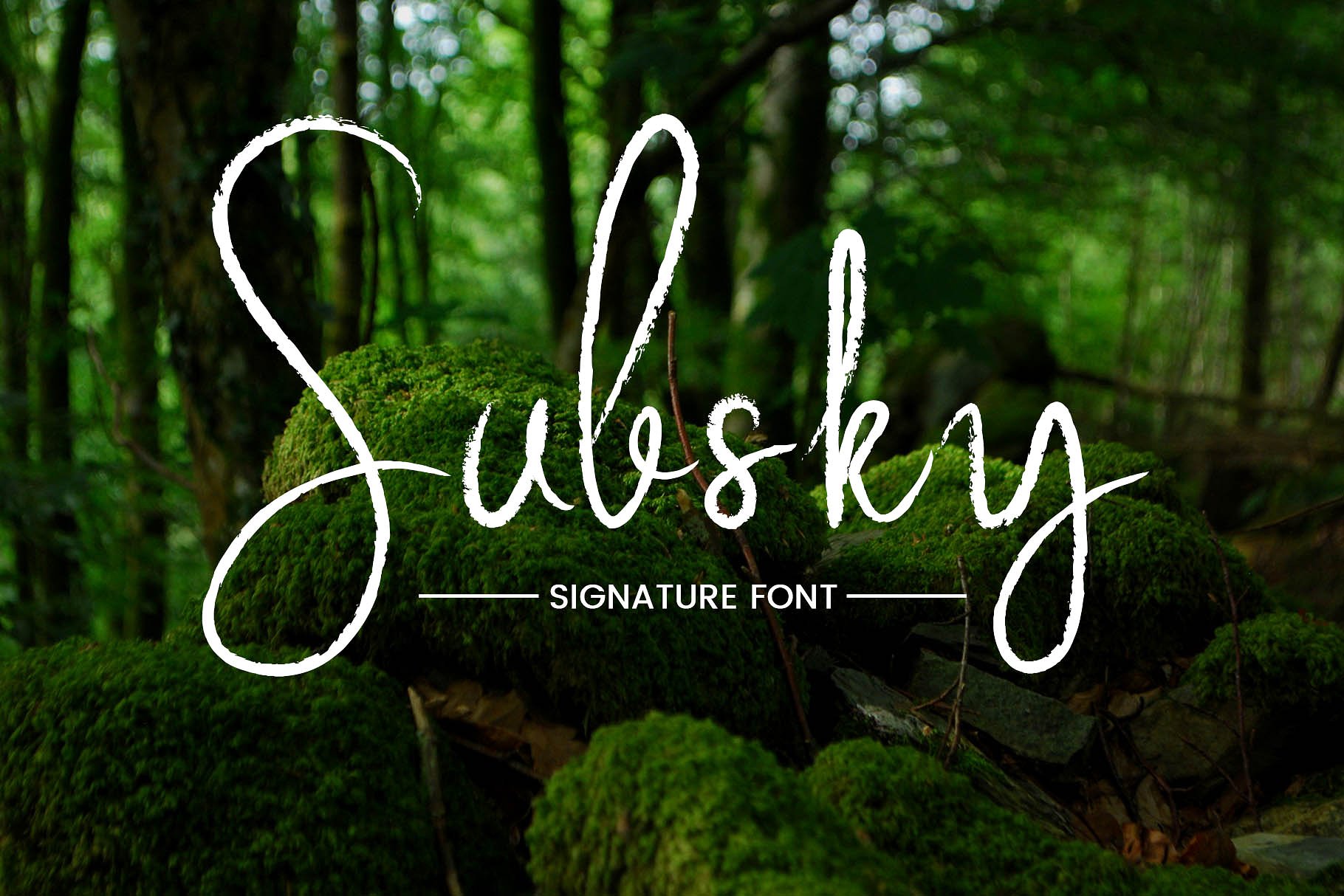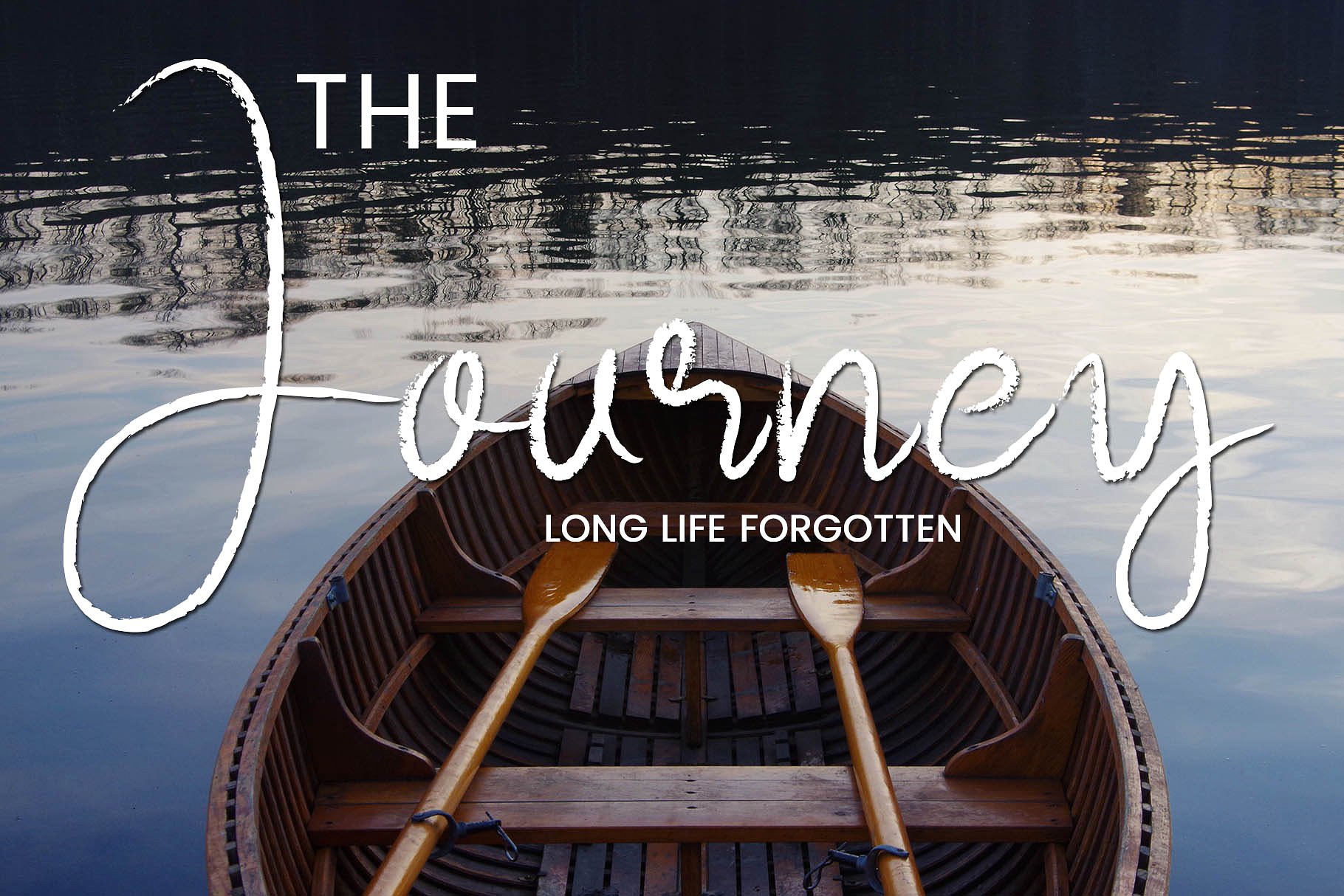
Subsky Brush Font
Hey There, here is a brush script font, it’s perfect for you to create any logo, poster, etc.
It’s perfectly suited to signature, stationery, logo, typography quotes, magazine or book cover, website header, clothing, branding, packaging design and more.
| Designer Name: | Guguh Gumantoro |
| Classification: | Brush Fonts, Script Fonts |